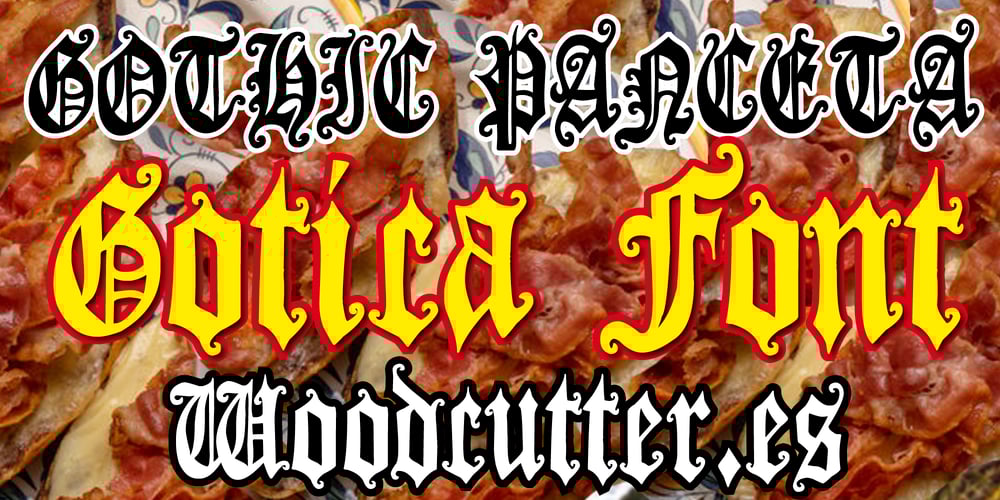
Gothic Panceta Font Family was designed by Jordi Manero and published by Woodcutter. Gothic Panceta contains 1 styles and family package options. “Gothic Panceta” is a font in uppercase and lowercase that blends medieval Gothic style with a modern, playful twist. The letters have a classic Gothic design but feature a distinctive characteristic: each letter has subtle wave-like curls that add an elegant and unique movement. These gentle curves contrast with the typical rigidity of Gothic fonts, creating a sense of fluidity and dynamism. “Gothic Panceta” is perfect for projects seeking a medieval appearance with an unexpected twist, offering both elegance and a playful character.